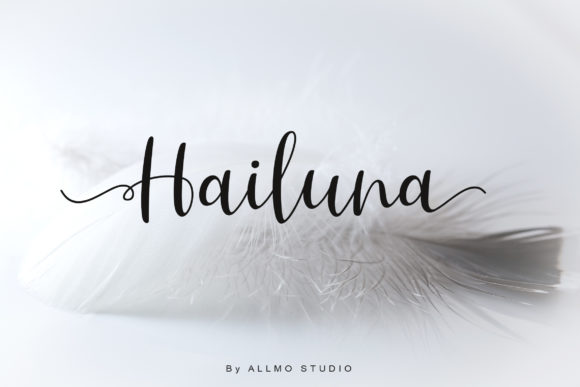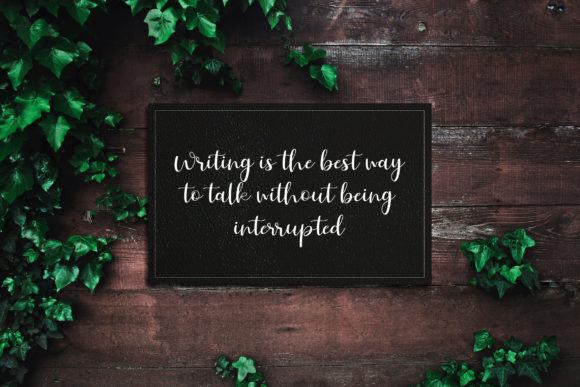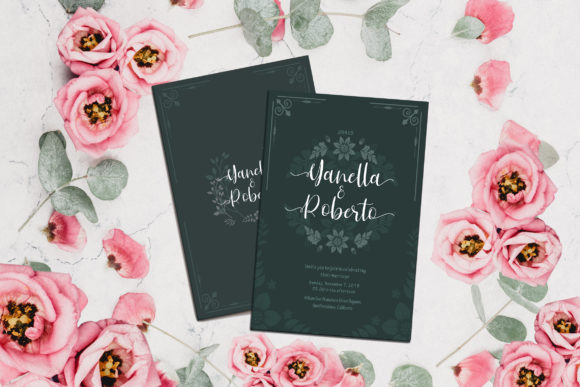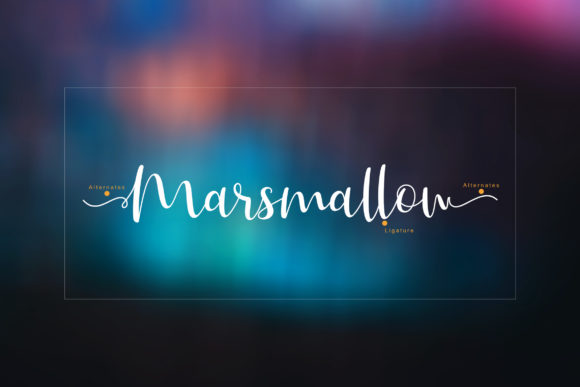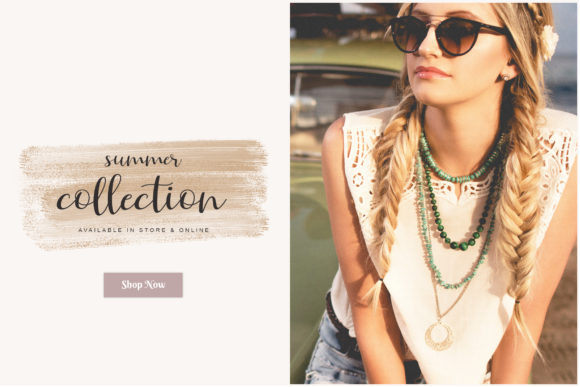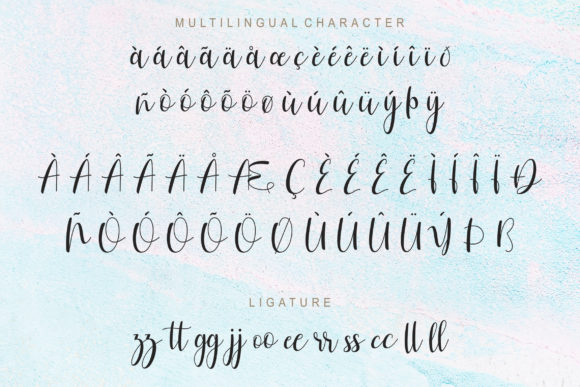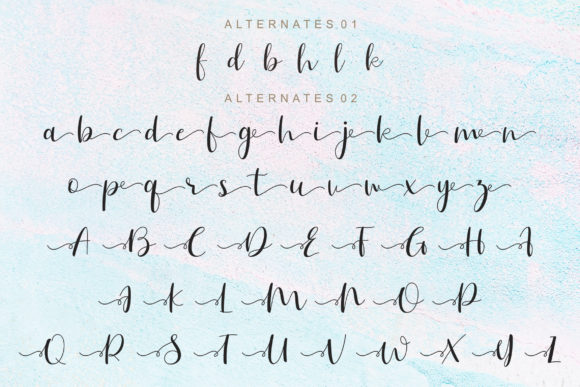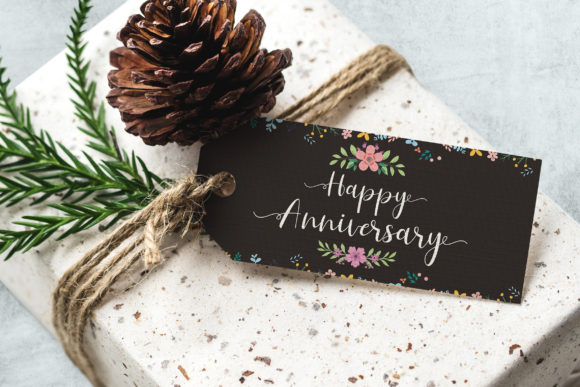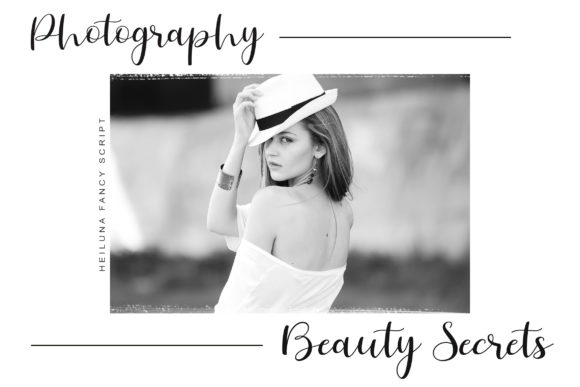
Hailuna Font
About Hailuna Font
The Hailuna is a modern script with a fancy feel. It has decorative characters and a dancing baseline which will add an elegant look to your designs.
It can be used for invitations, greeting cards, branding materials, business cards, quotes, posters, and more!